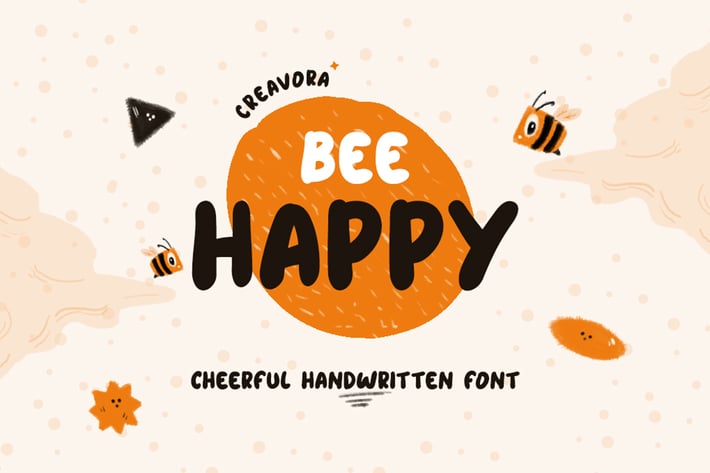
Bee Happy - Cheerful Handwritten Font
Creavora
Introducing Bee Happy - Cheerful Handwritten Font
Looking for the cheerful font to fire up your content?
A new handwritten font that's suitable for a super fun and cheerful vibes.
Make your design pop with the thin enchanting font.